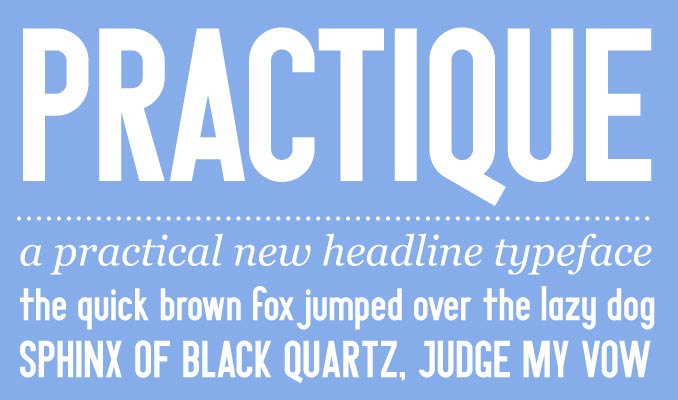
Practique by Alexander Powell is a free condensed sans serif with forceful, poster-sized proportions. Its letters combine broad vertical strokes with much finer crossbars and tight, squared joins, producing a sharp industrial silhouette. The narrow forms are weighty.
Fashion labels and arts venues could use it for posters, event programs, packaging, and merchandise with an editorial edge. Across those settings, the towering letter shapes can become a structural graphic element, forming dense bands and vertical patterns rather than serving only as neutral text.
Practique
Alexander Powell